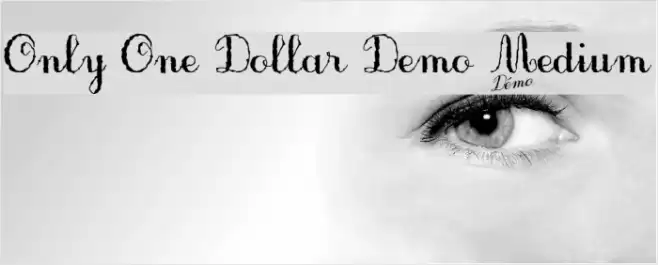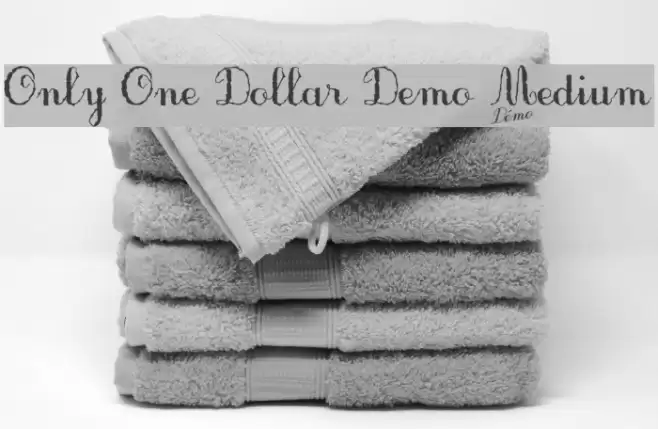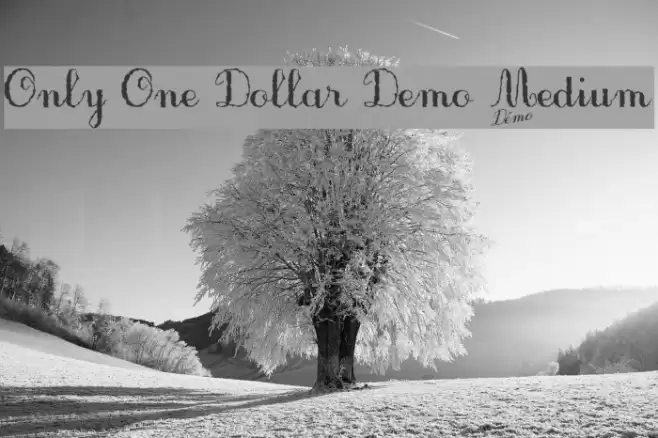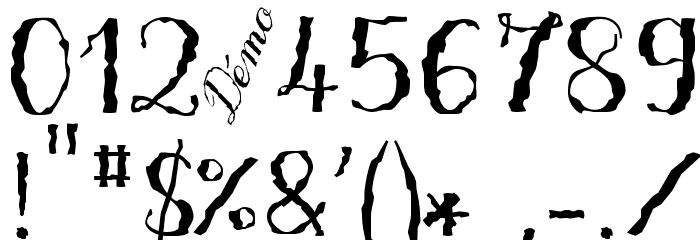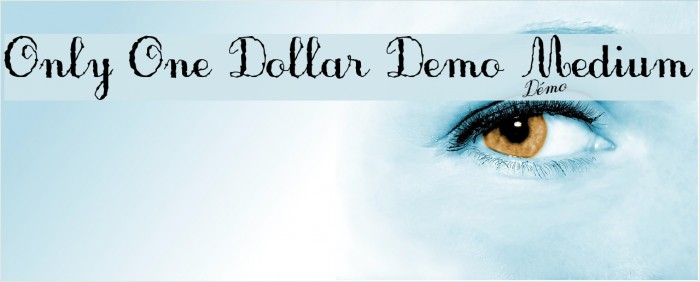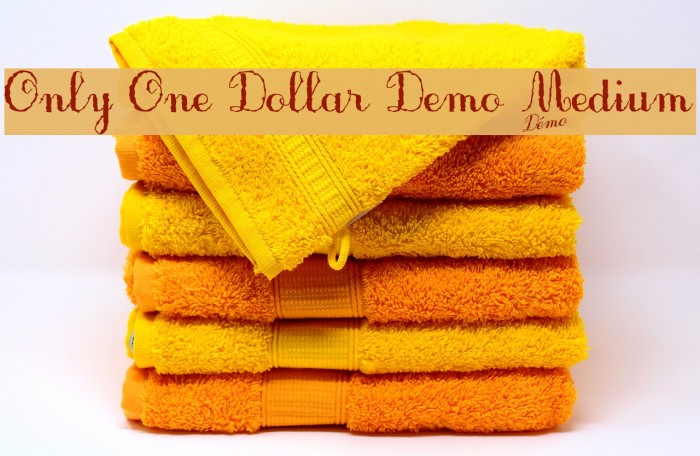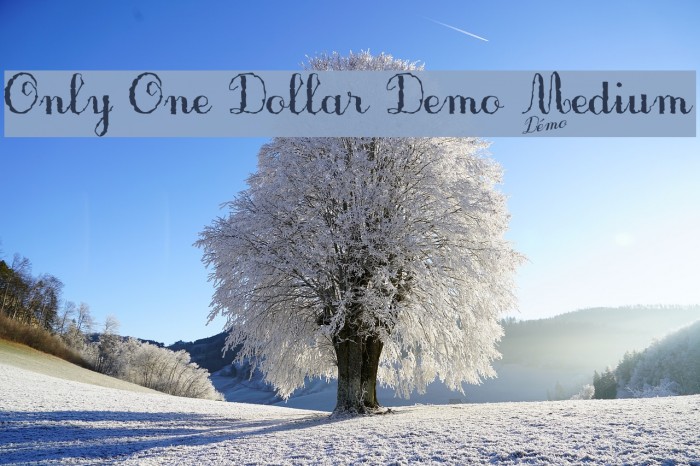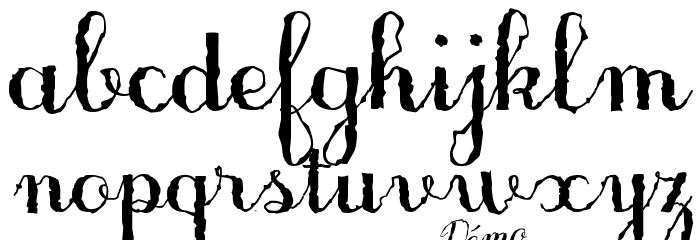
Only One Dollar Demo Medium Font
Only One Dollar Demo Medium Description
This font features a unique and artistic style, characterized by its decorative and intricate design. The uppercase letters have an elaborate, almost vine-like appearance, with swirling extensions that give them a whimsical and organic feel. The lowercase letters maintain this decorative theme, though they are slightly more restrained, allowing for better readability. The numbers and special characters continue the ornate style, with bold strokes and playful curves. This font's high contrast in stroke thickness adds to its dramatic and eye-catching nature, making it stand out in any design.
An artistic and decorative font with high contrast and whimsical, vine-like elements from Uncategorized fonts.